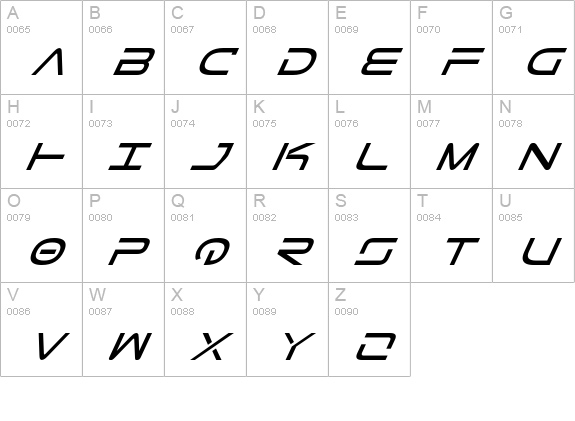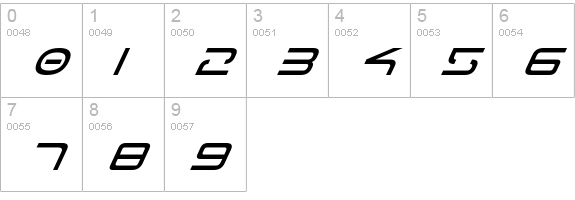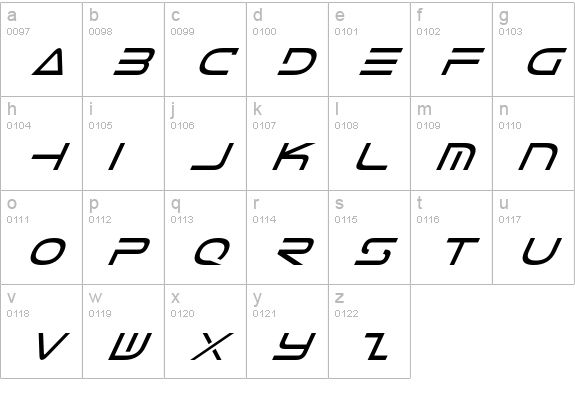
Tele-Marines Italic Font Details
Tele-Marines Italic is a distinctive, italic variant in the Tele typeface family \xE2\x80\x94 well suited to design and typography projects.
Tele-Marines Italic is a stunning and versatile font that exudes a strong and bold personality. With its sleek and dynamic letterforms, this font is perfect for adding a touch of modernity and sophistication to any design project. The italic style adds a sense of movement and energy, making it ideal for conveying a sense of action and excitement. What sets Tele-Marines Italic apart is its availability as a free download at FontsMarket.com. This means that anyone can easily access this incredible font and incorporate it into their creative endeavors without any cost. Whether you're a professional designer looking to enhance your portfolio or a hobbyist wanting to add flair to personal projects, Tele-Marines Italic is freely available to fulfill your typographic needs. Featuring a well-balanced combination of sharp angles and smooth curves, this font strikes the perfect balance between elegance and edge. Its bold strokes and distinct letterforms make it highly legible even at smaller sizes, ensuring that your messages will always be clear and impactful. Tele-Marines Italic is a versatile typeface that lends itself well to a wide range of applications. From headlines and logos to posters and advertisements, this font will make a lasting impression and capture attention. Its unique italic style adds a touch of flair and uniqueness, making it stand out from the crowd. Whether you're designing for print or digital media, Tele-Marines Italic is the perfect choice for projects that require a touch of sophistication and modernity. Its versatility and availability as a free download make it an invaluable resource for designers and creatives alike. So why wait? Head over to FontsMarket.com and download Tele-Marines Italic today to elevate your designs to new heights.